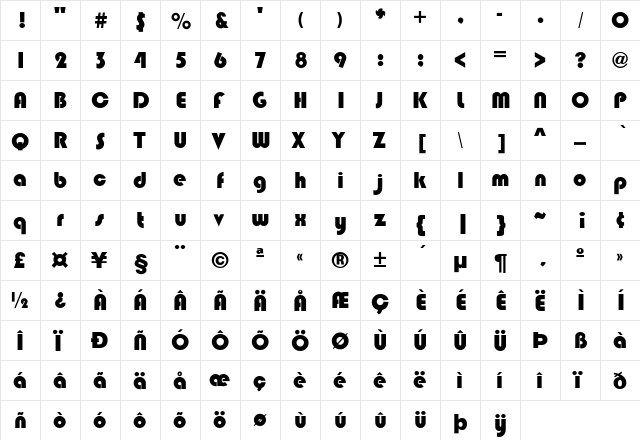
Mazeppa-Heavy Regular
Design Context for Mazeppa-Heavy Typeface
Mazeppa-Heavy is a composed and adaptable typeface that performs quietly and consistently across a wide range of design contexts.